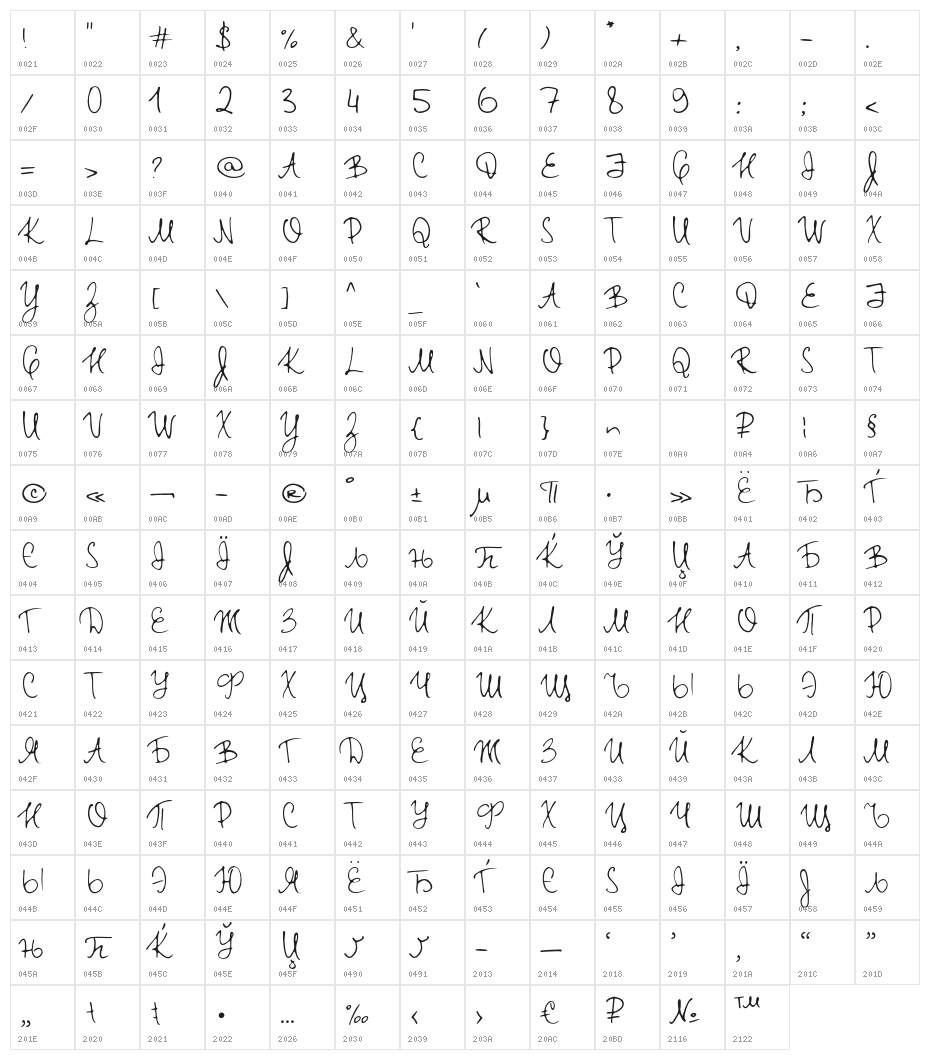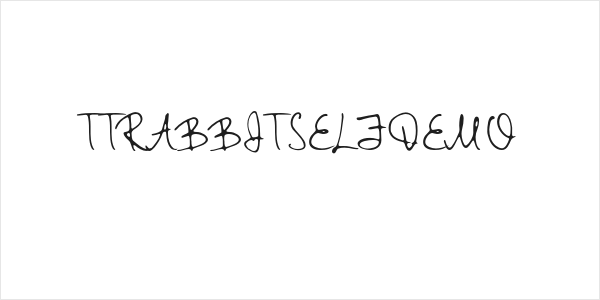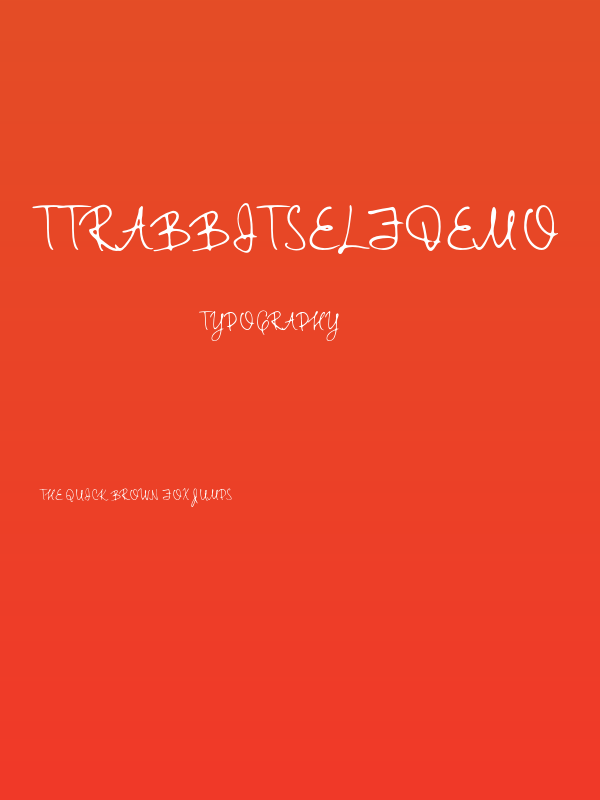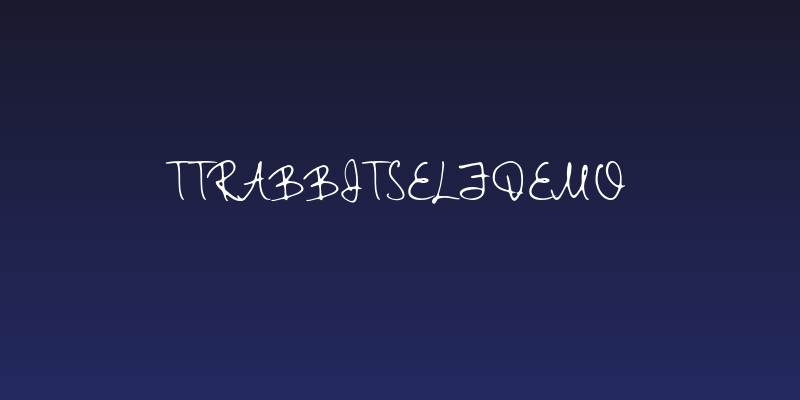
TTRabbitsElfDEMO Font
This font features a playful and whimsical script style, characterized by its fluid and flowing letterforms. The uppercase and lowercase letters are designed with a sense of movement, giving them a lively and dynamic appearance. The strokes are moderately thick, with a slight variation in width that adds to the handwritten feel. The numbers and special characters maintain the same playful aesthetic, ensuring consistency across all characters. This font is ideal for projects that require a personal touch or a sense of creativity and fun.
Use CaseLogos, Invitations, Creative projects
Proposed ProjectsIdeal for greeting cards, invitations, playful branding, and creative projects.